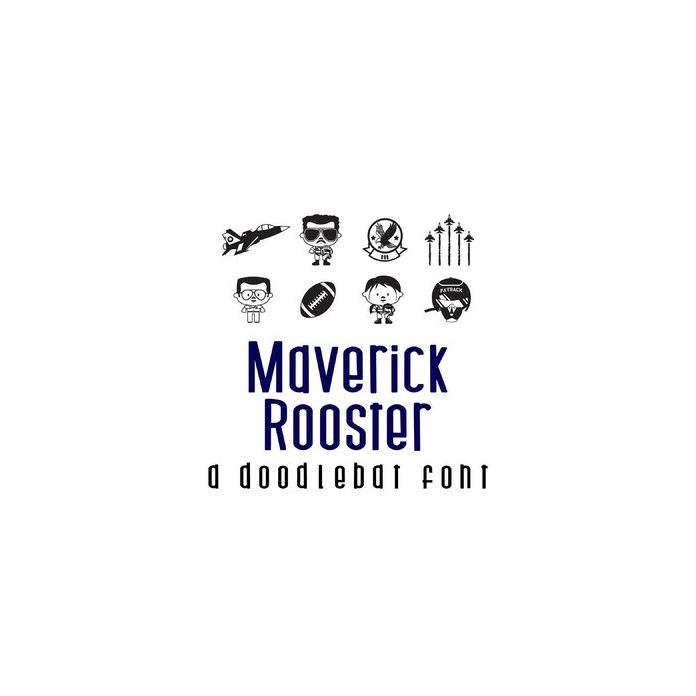
This fun doodlebat font features our favorite all-american jet fighter pilot and crew. With 26 images it's perfect for Father's Day, crafts, gifts, parties, card making, scrap book pages, planner stickers and more!